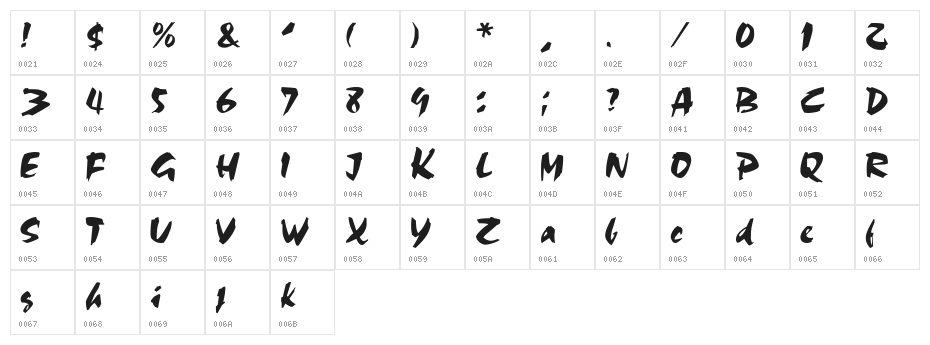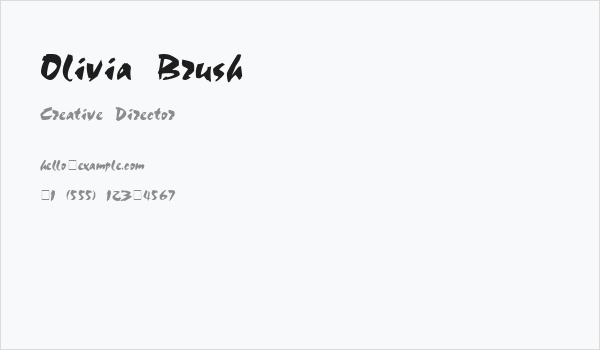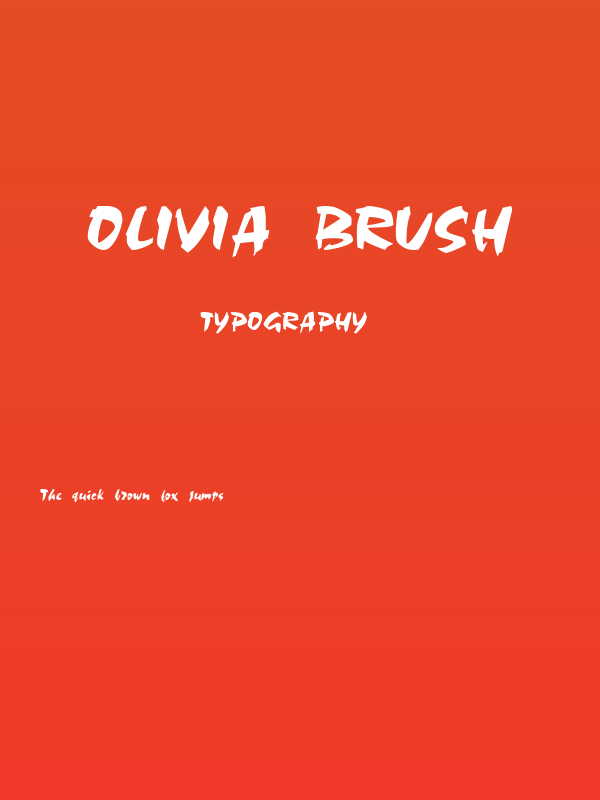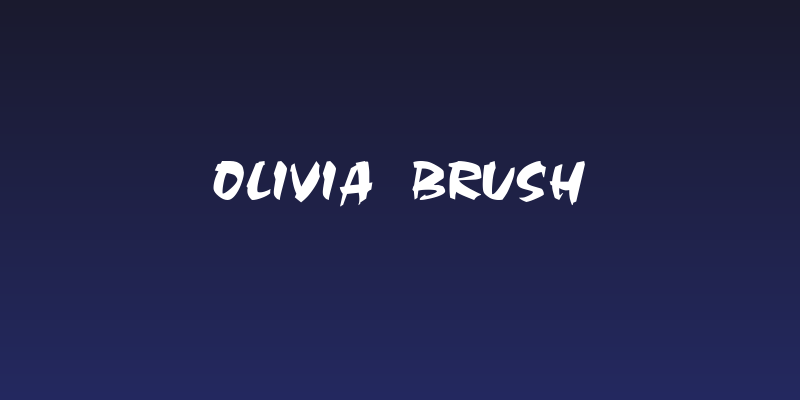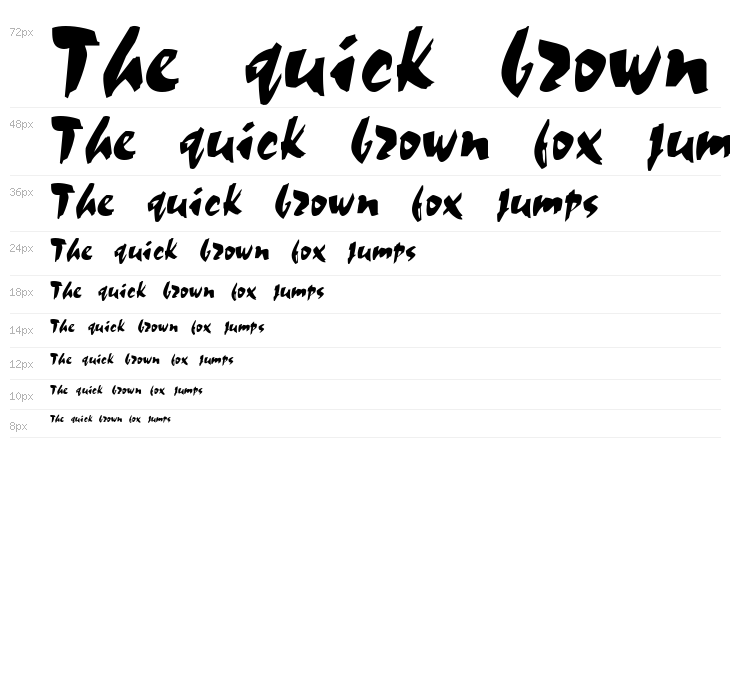
Olivia Brush Font
Olivia Brush Description
This font exudes a bold and dynamic brush style, characterized by its energetic and expressive strokes. The uppercase and lowercase letters are crafted with a sense of movement, giving each character a unique flair. The numbers and special characters maintain this lively aesthetic, making the font suitable for projects that require a touch of creativity and boldness. The overall design is reminiscent of hand-painted lettering, offering a personal and artistic touch.
| Proposed Projects | Ideal for creative projects such as posters, branding, and artistic designs that require a bold and expressive typeface. |